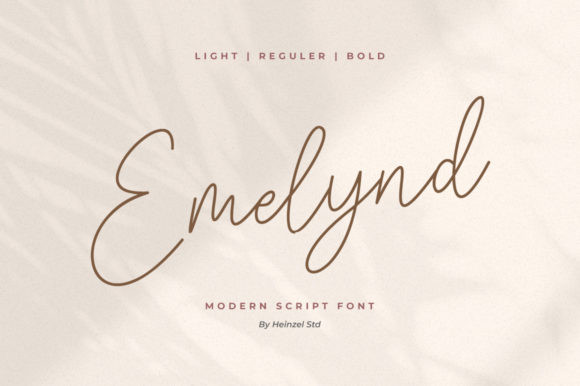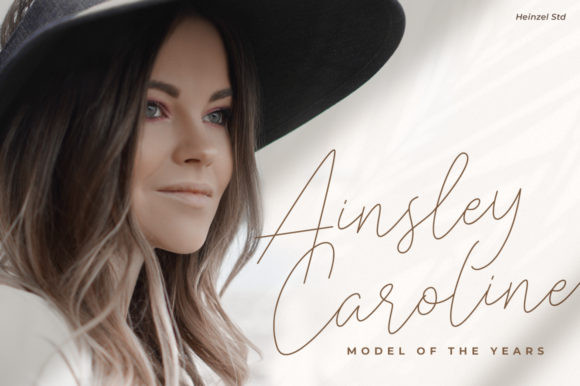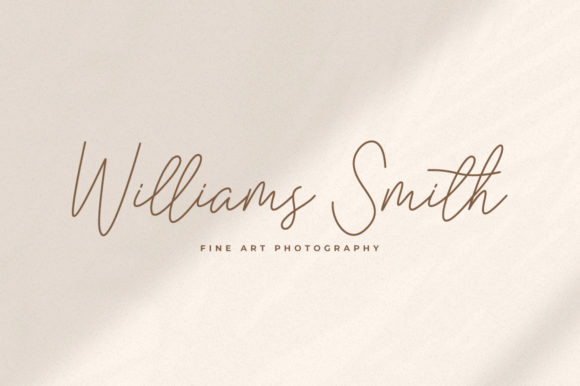
Emelynd Font
Emelynd feels equally charming and elegant. This stunning handwritten font is a stylish homage to classic calligraphy. It features a varying baseline, smooth lines, gorgeous glyphs and stunning alternates.